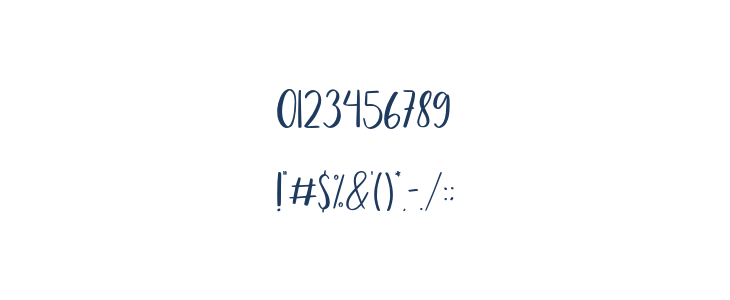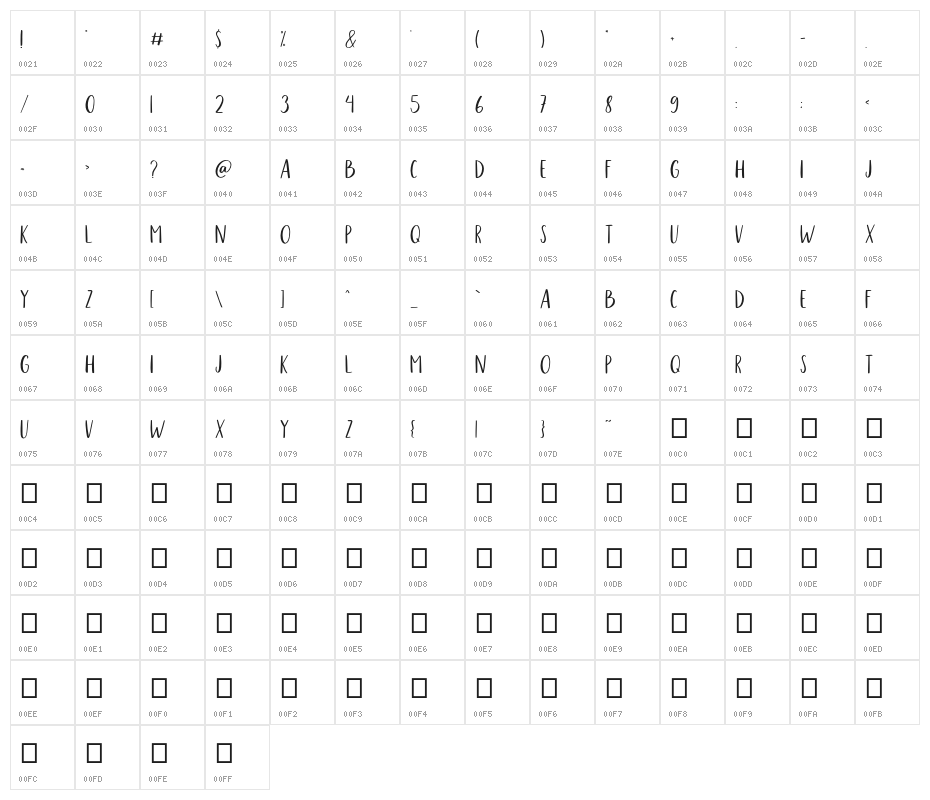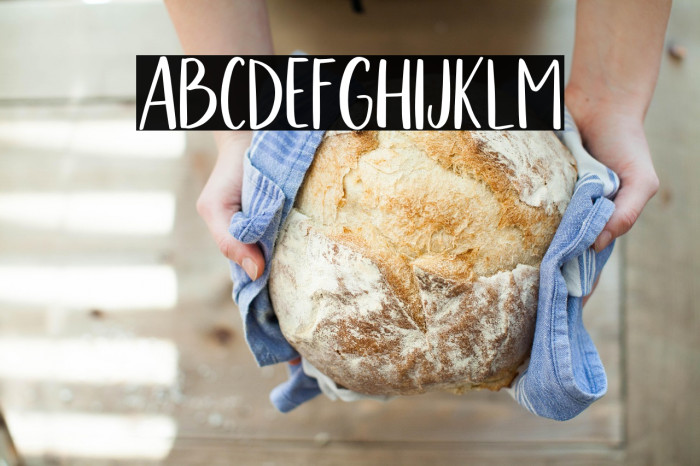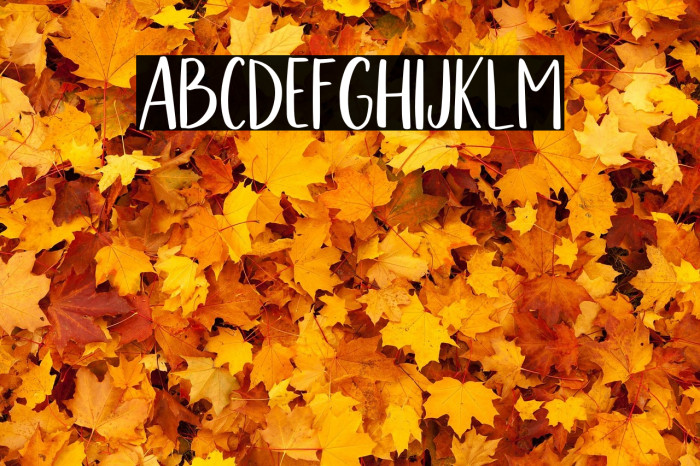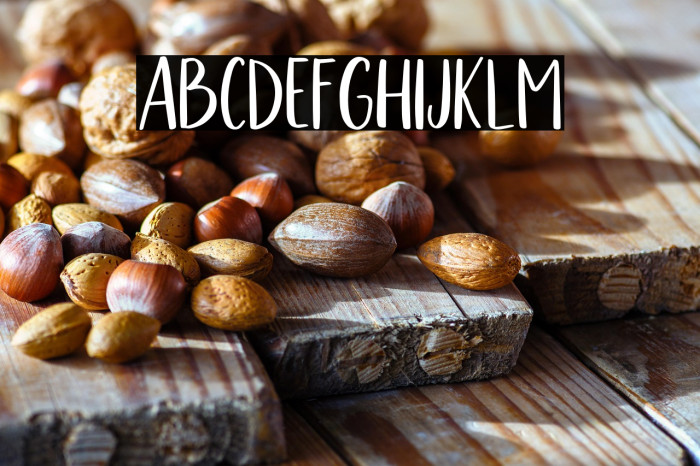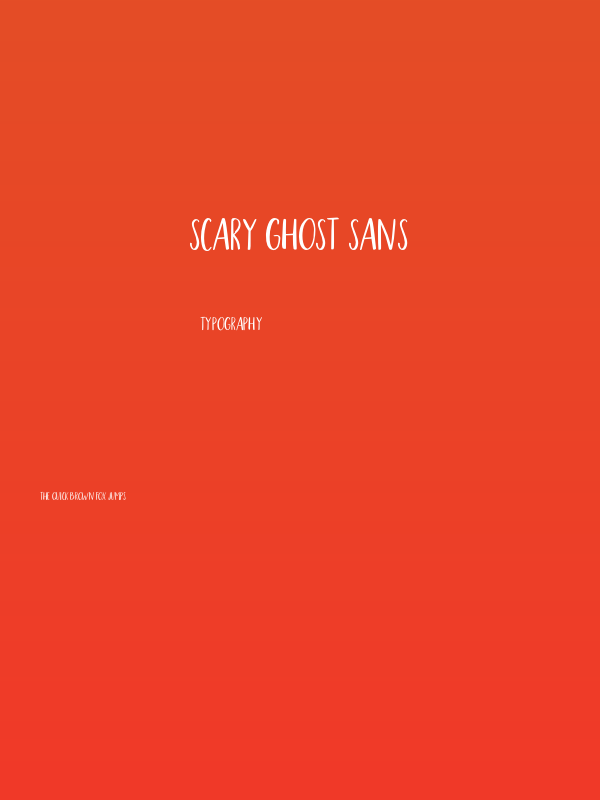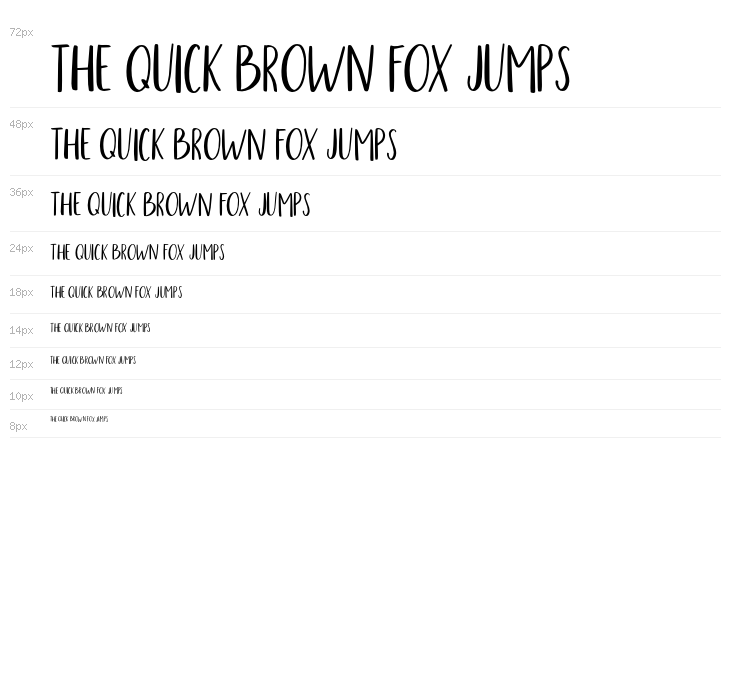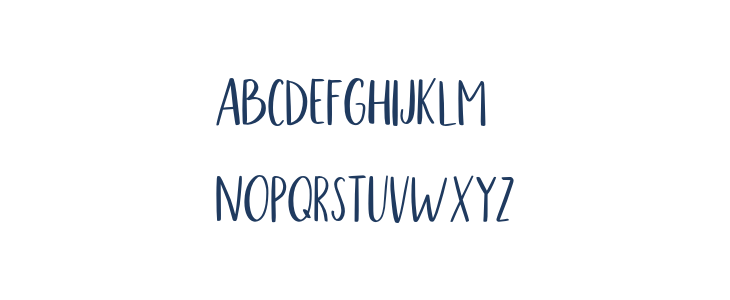
Scary Ghost Sans Font
Scary Ghost Sans Description
This font features a playful and slightly spooky design, characterized by its uneven strokes and whimsical curves. The letters have a hand-drawn appearance, giving them a unique, informal style that adds a touch of personality. The uppercase and lowercase letters maintain a consistent style, with a slightly condensed form that enhances readability. The numbers and special characters follow the same playful design, making them suitable for creative projects. The font's overall appearance is both approachable and distinctive, making it ideal for themed designs.
| Use Case | Headlines, Logos, Themed Designs |
| Proposed Projects | Ideal for Halloween-themed designs, children's book covers, party invitations, and creative branding. |